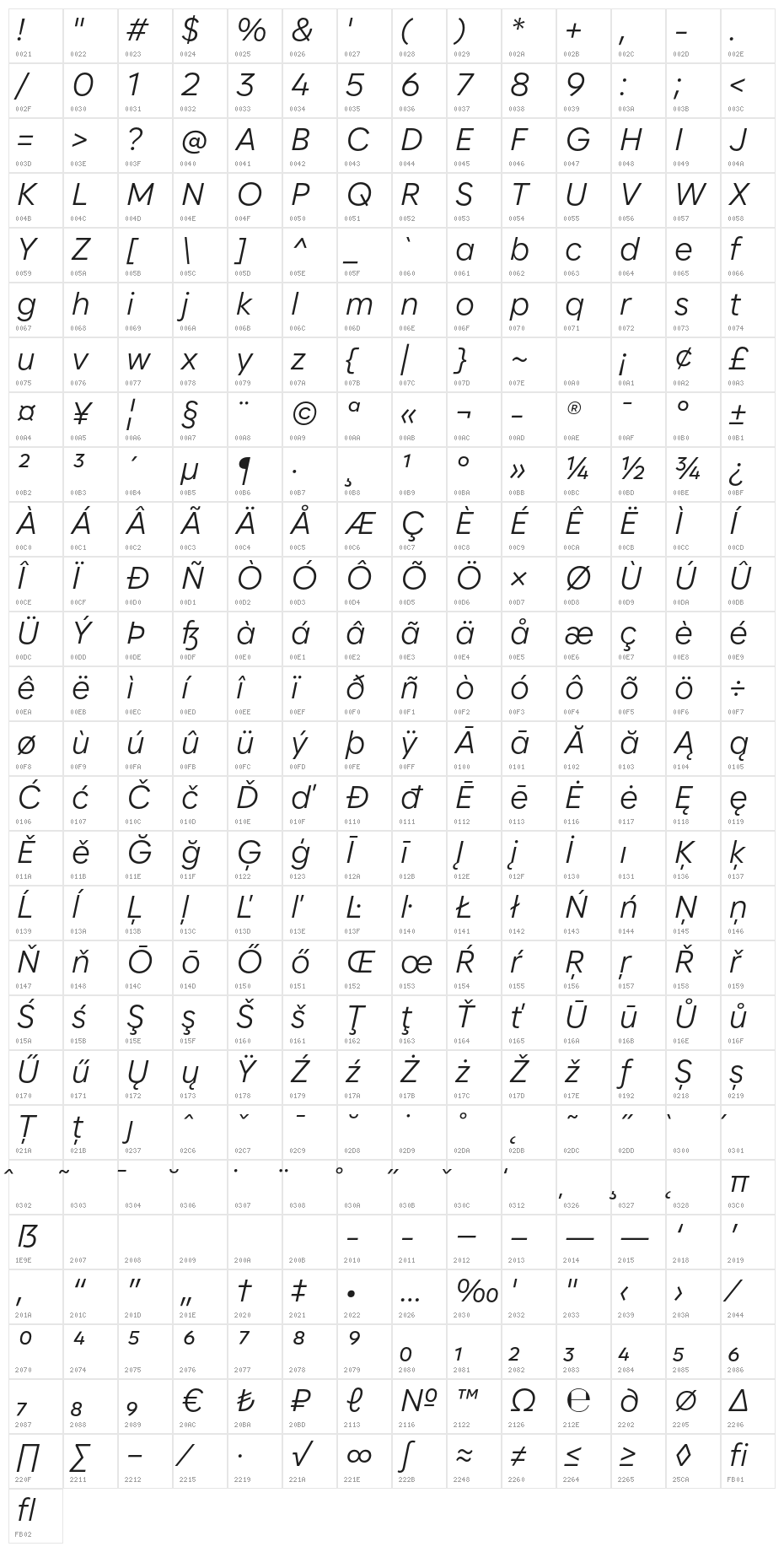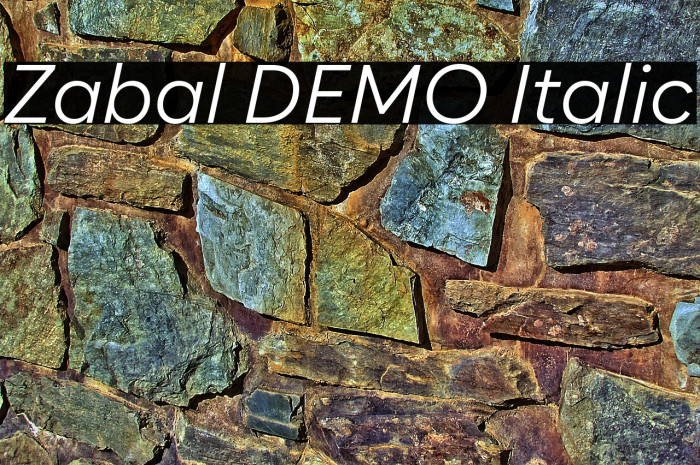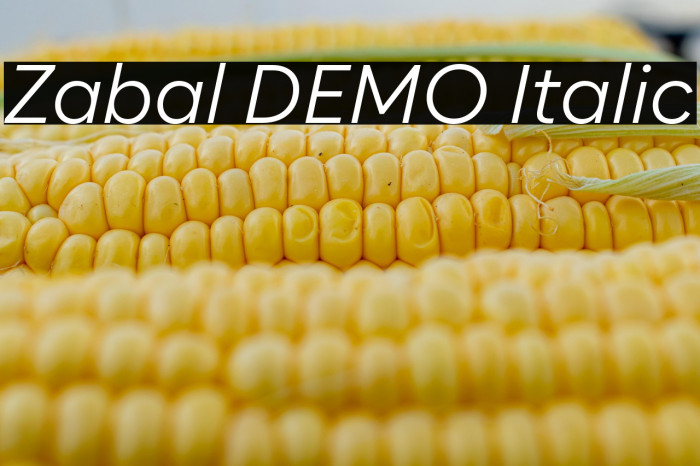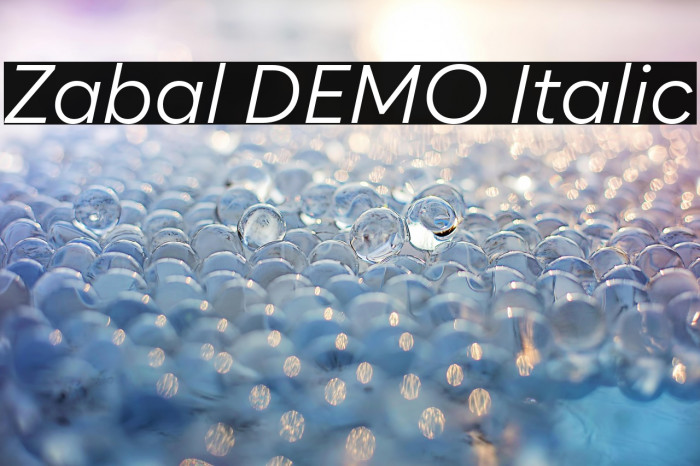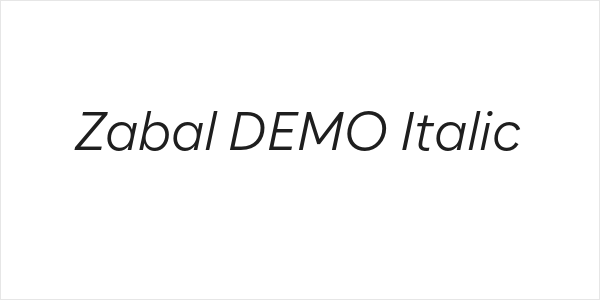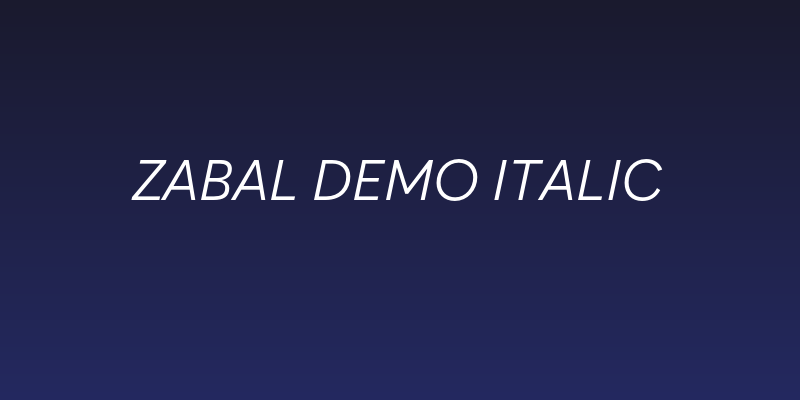
Zabal DEMO Italic Font
Zabal DEMO Italic Description
This font exhibits a sleek and modern design with a slight italic slant, giving it a dynamic and forward-moving appearance. The characters are clean and well-defined, with smooth curves and a consistent stroke width that maintains readability. The uppercase letters are bold and commanding, while the lowercase letters offer a softer, more approachable feel. The numerals are clear and distinct, making them suitable for both text and numerical data. The special characters are well-integrated, ensuring versatility across various applications. Overall, this font balances elegance with functionality, making it ideal for contemporary design projects.